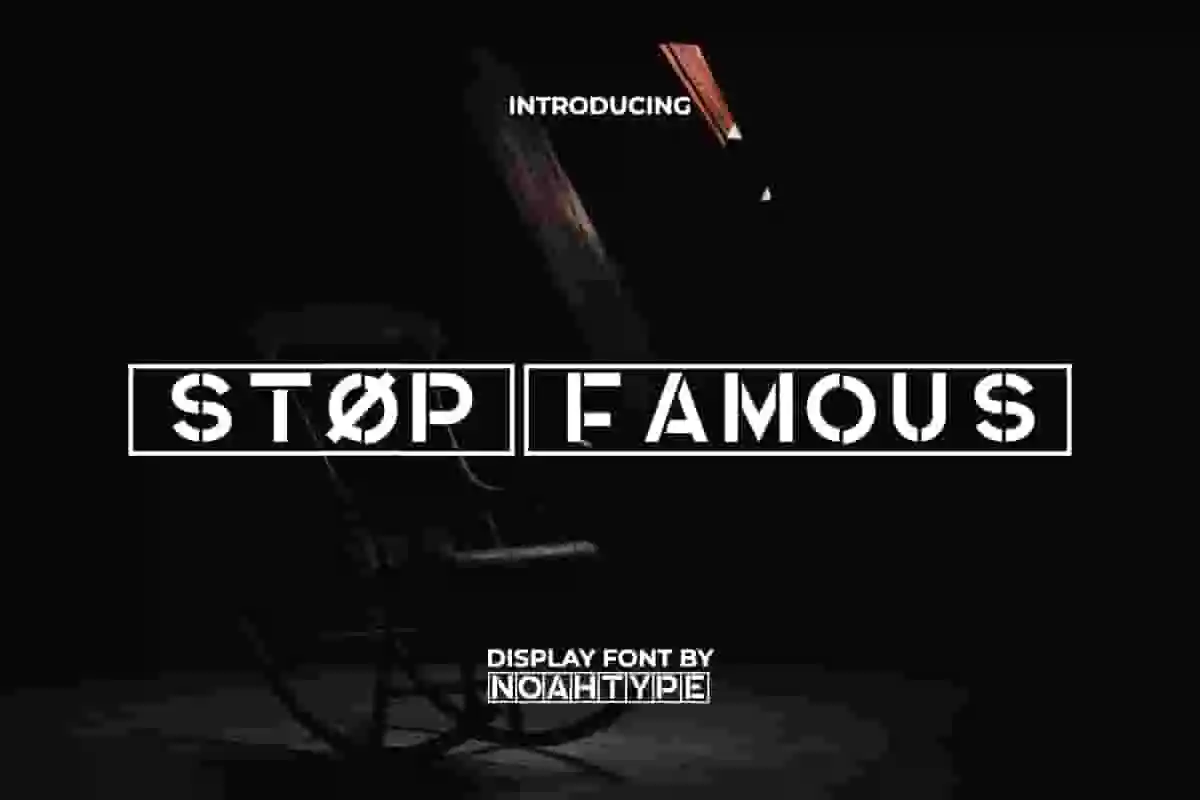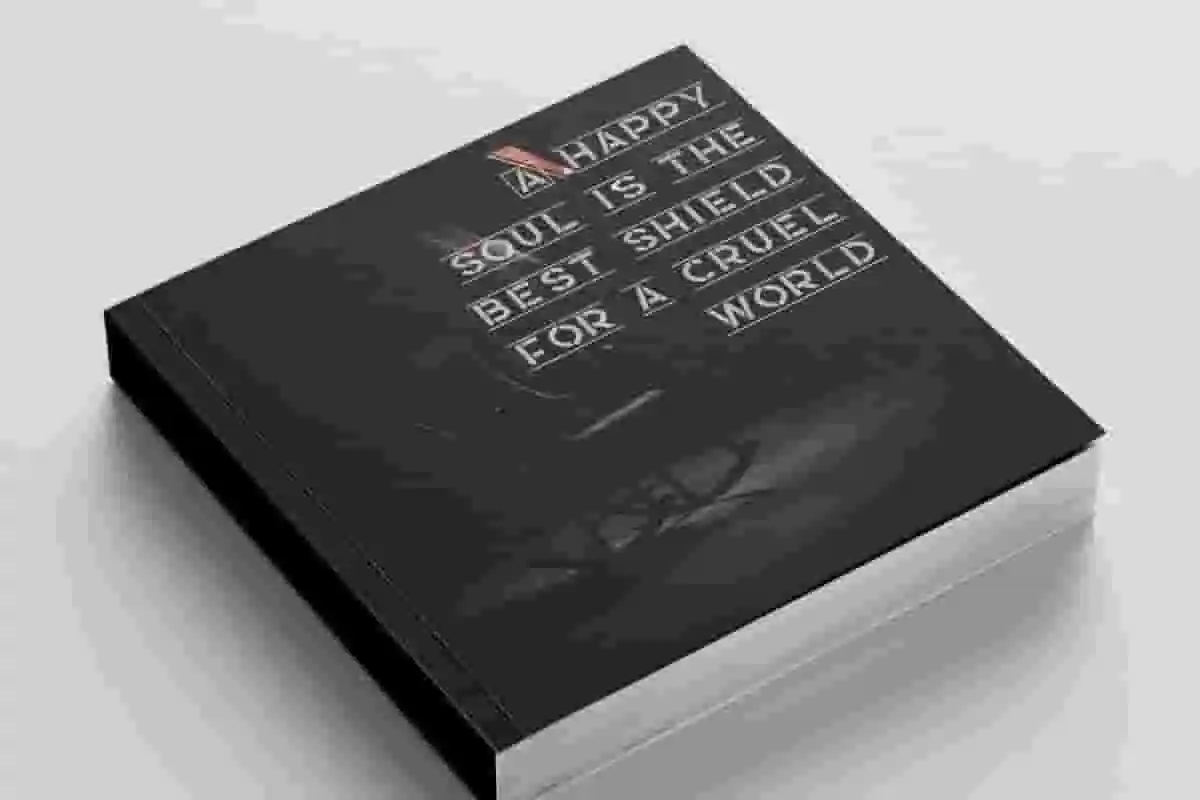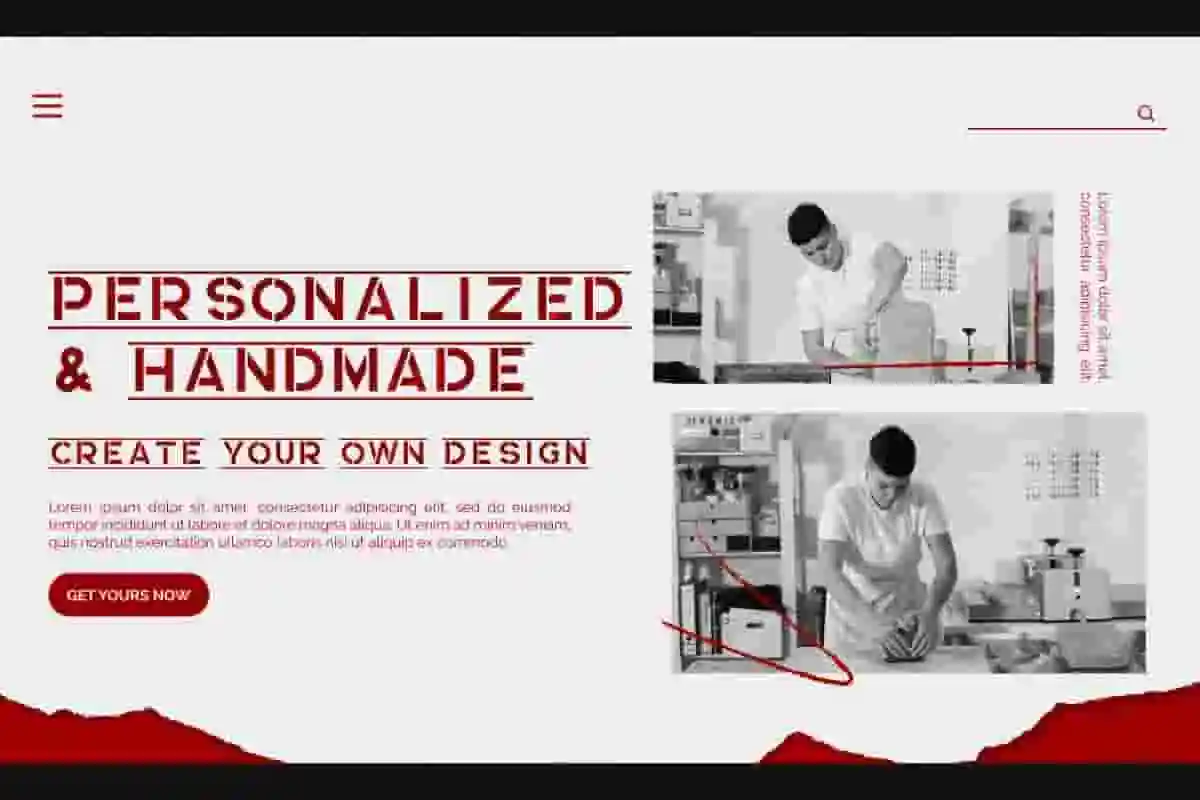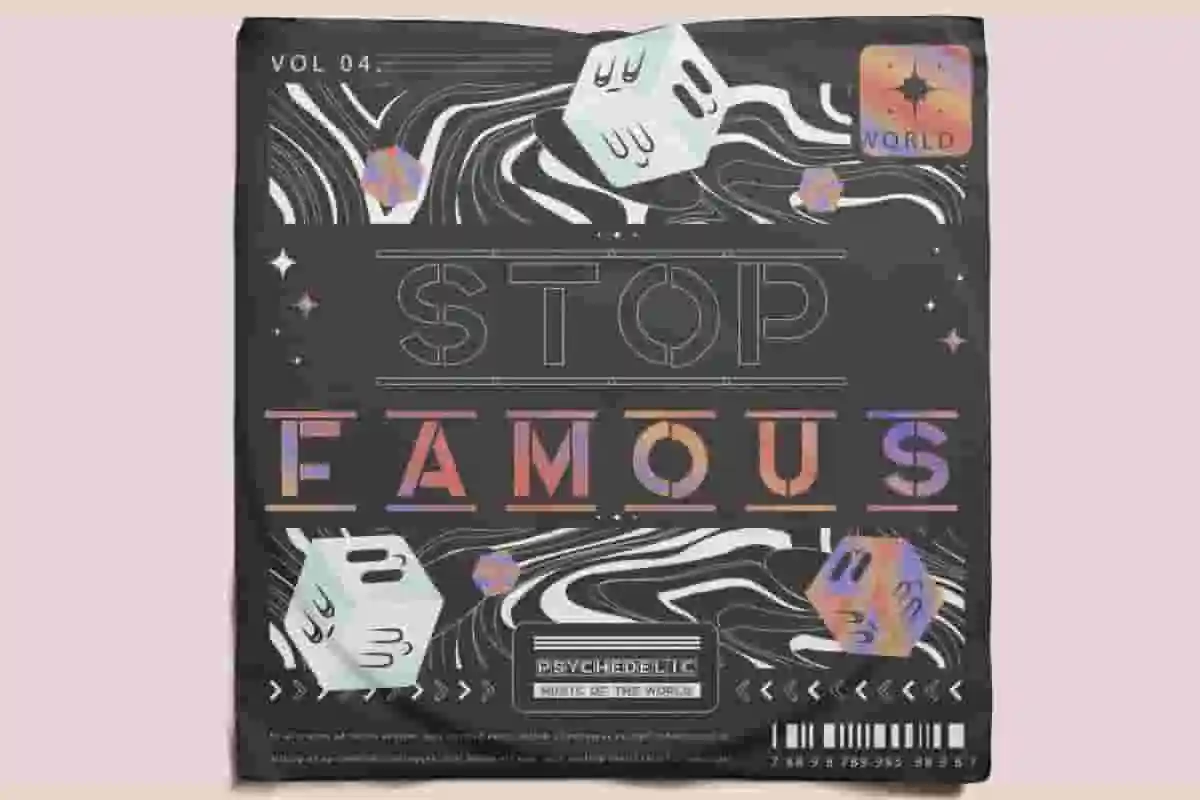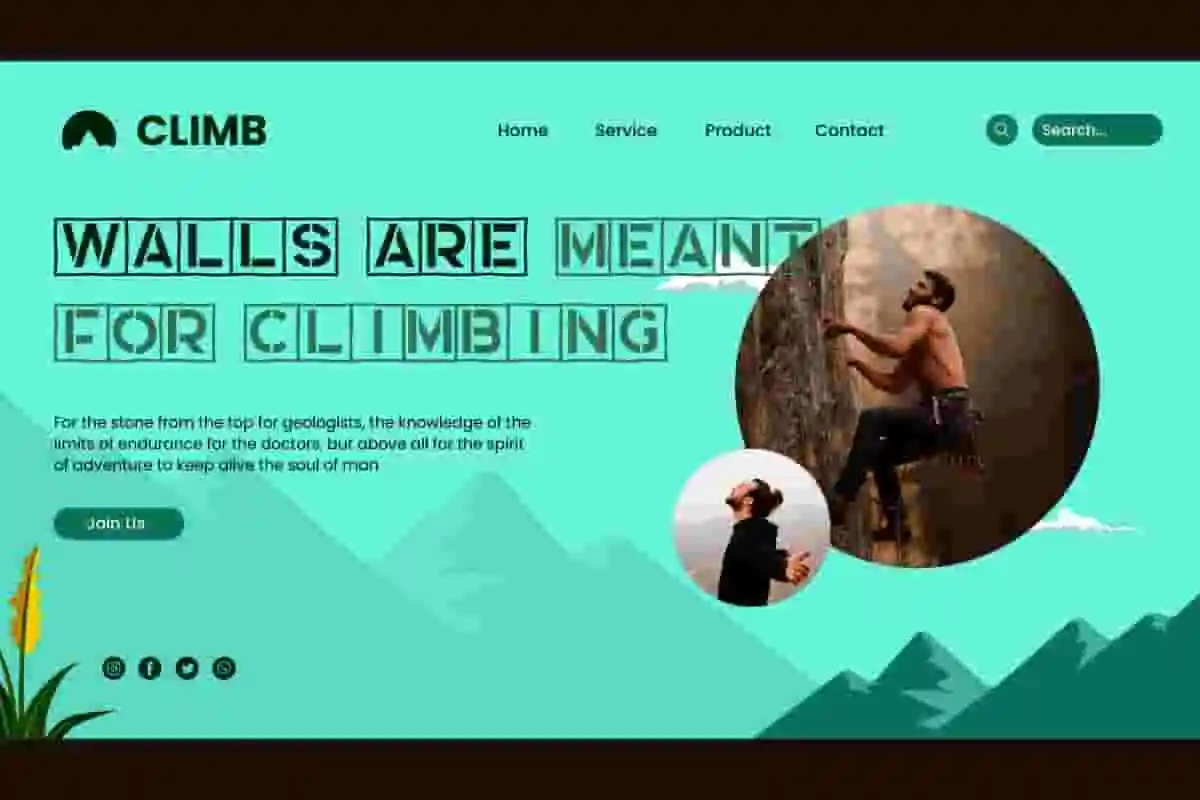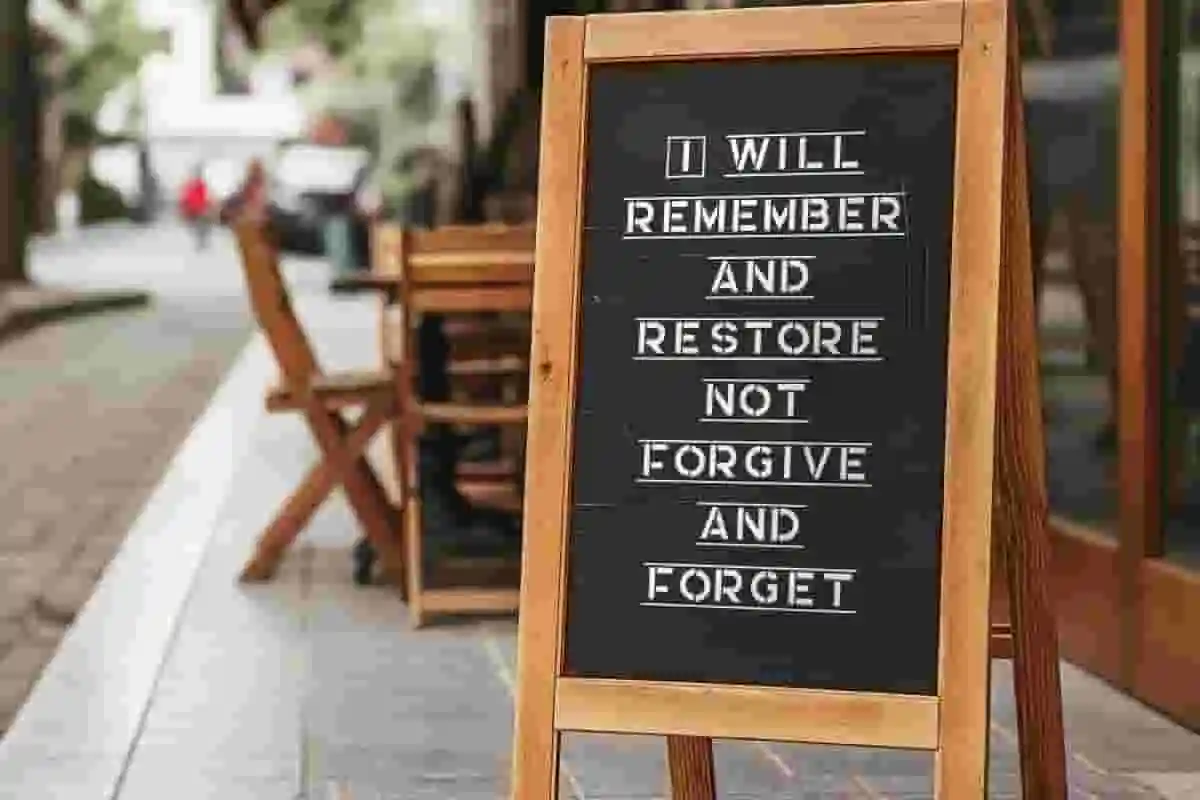
Stop Famous Font
Stop Famous Font is a graffiti, protest, decorative, poster and demonstrative font with aggressive style. With line details on each side and within the characters, this font can standout in any design. It will be perfect for cover, poster, label, custom design, signage, invitation, brand image, stationery, printing, product packaging, quotes, website, and many more!
Stop Famous Font includes full set of ALL CAPS for Uppercase and Lowercase Basic Characters, Numerals, Punctuation, and Symbol. This stylish font will make your design awesome and also a perfect choice for many industries, such as fashion, game, movie, music, cafe, accessories, advertising, art, cafe, event or festival, printing, publishing, etc.